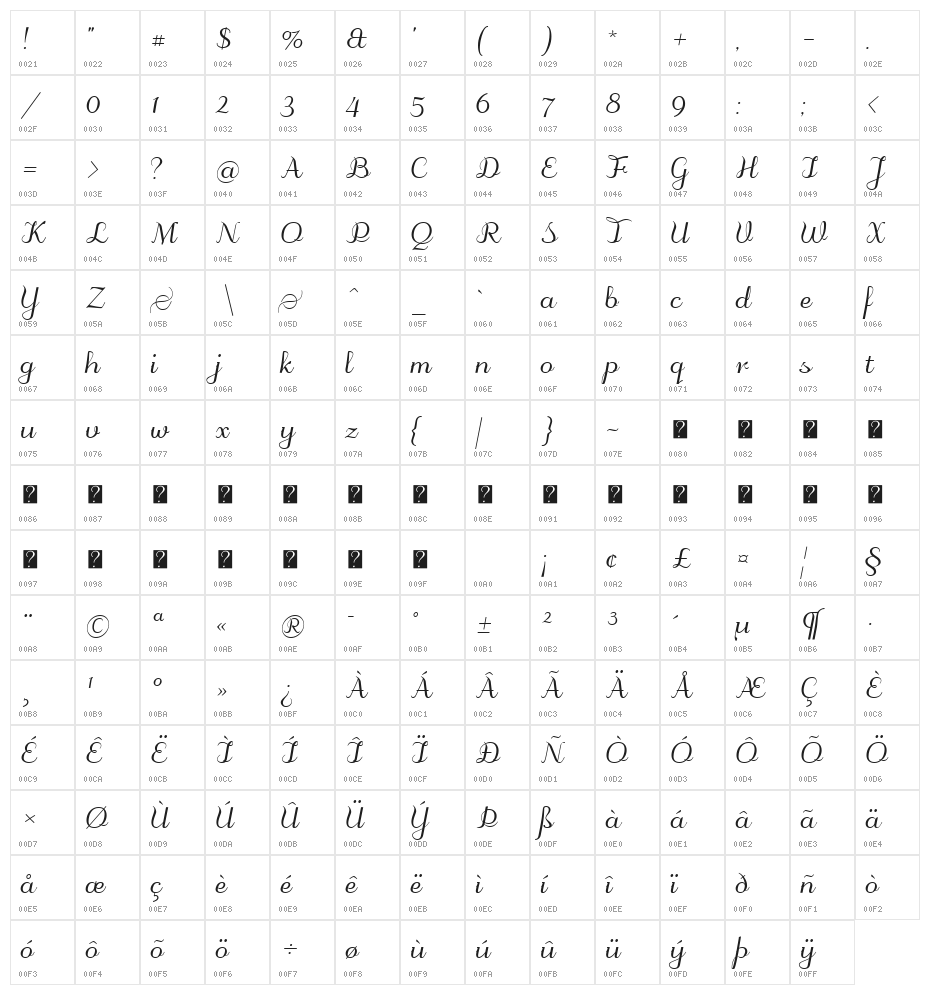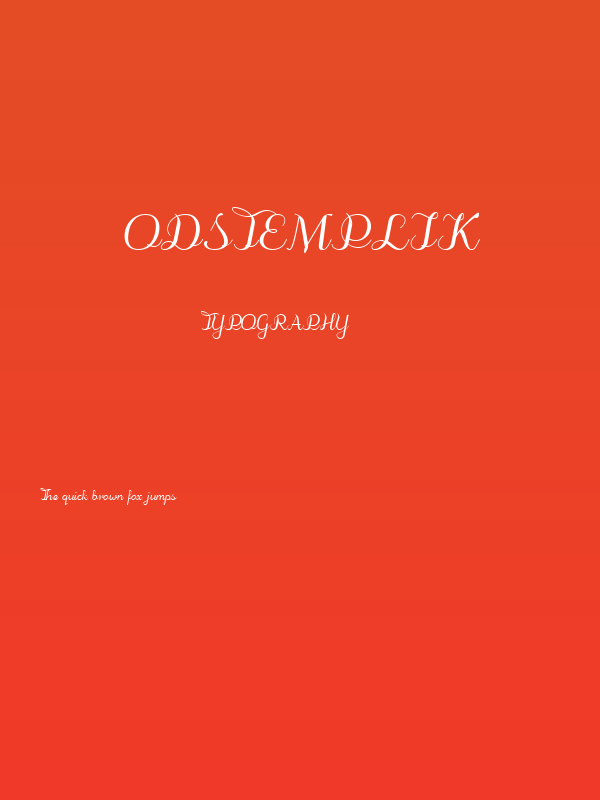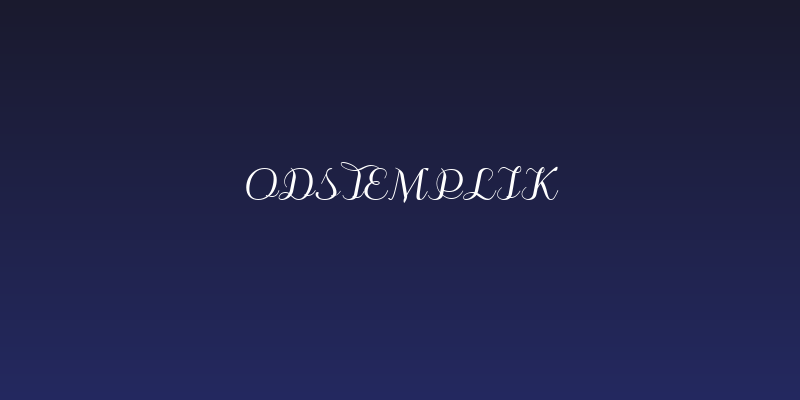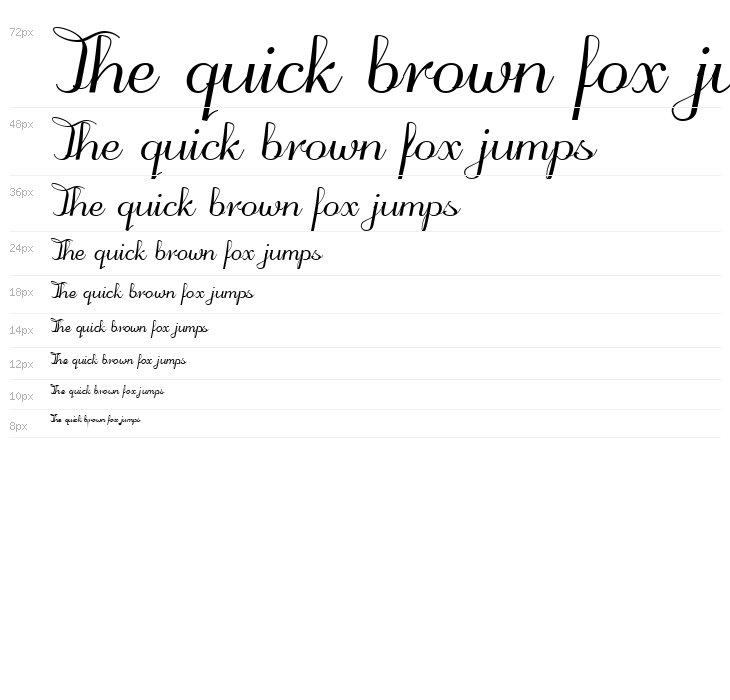
odstemplik Font
odstemplik Description
This elegant script font features a flowing, cursive style with graceful, sweeping curves and delicate strokes. The uppercase letters are characterized by their tall, slender forms and intricate loops, giving them a sophisticated and refined appearance. The lowercase letters maintain a consistent fluidity, with smooth connections between characters that enhance readability. The numerals are designed with a similar flair, incorporating subtle curves that align with the overall aesthetic. Special characters are thoughtfully crafted to complement the font's style, ensuring a cohesive look across all text elements.
| Overall Style | Elegant, Sophisticated |
| Proposed Projects | Ideal for wedding invitations, elegant branding, greeting cards, and upscale packaging. |